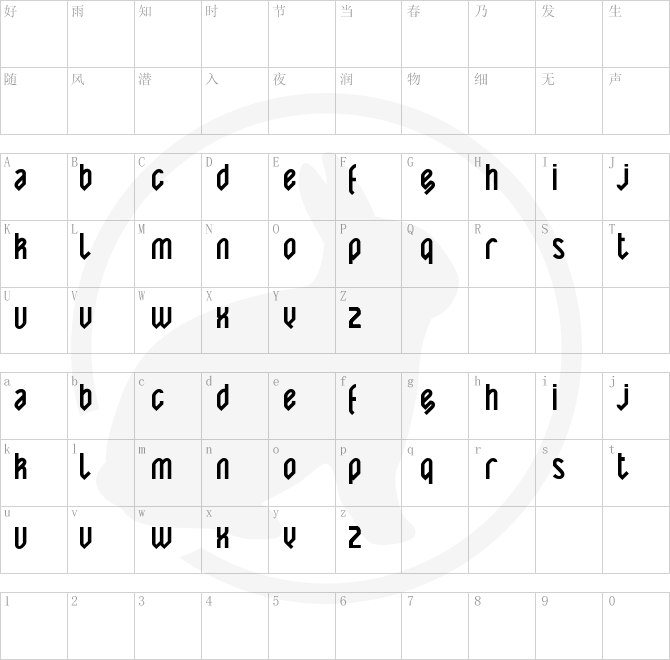
- Font Name:Yatis black
Yatis-black.ttf is a very beautiful artistic font, Yatis-black.ttf is widely used in the design and printing of various books and pictures,Yatis-black.ttf has a strong visual impact,Yatis-black.ttf is a commonly used font in newspapers, magazines and books, and is used in posters, e-commerce Poster design, store design, logo design, font design and other fields.Yatis-black.